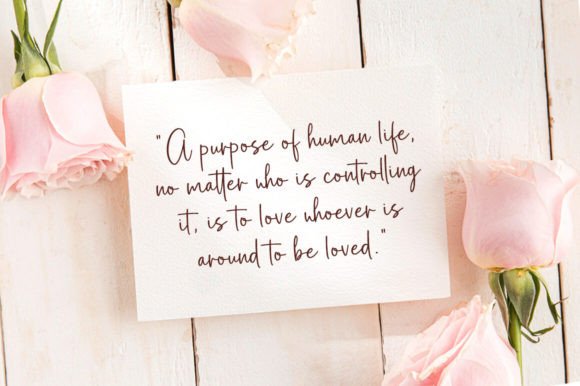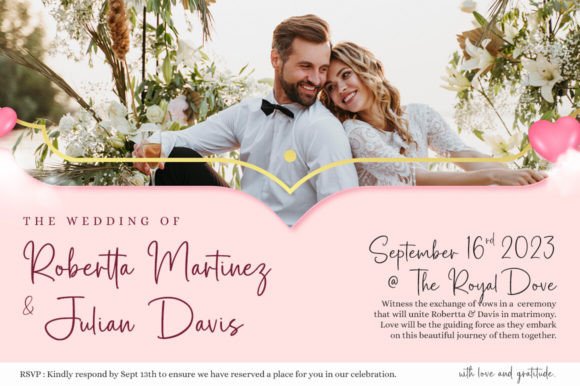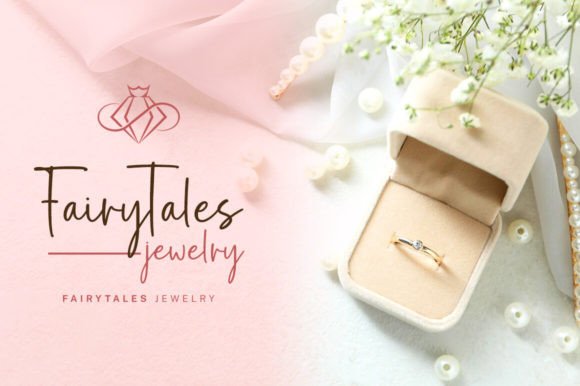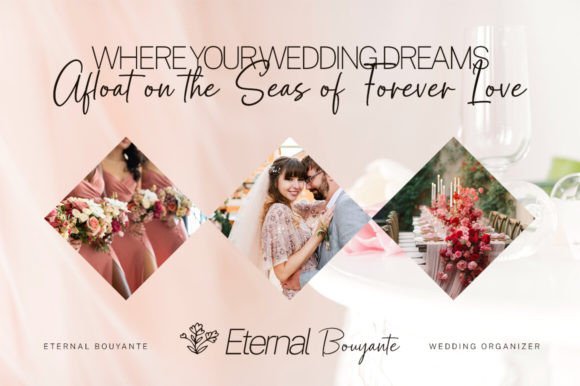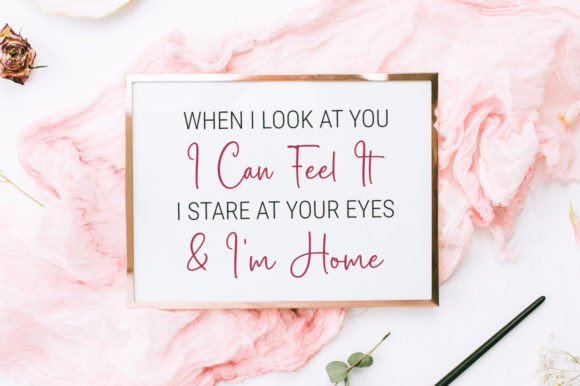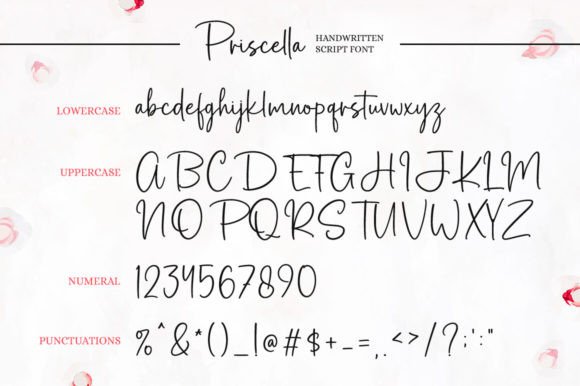
Introduction to Priscella Font
Emanating an air of elegance, Priscella is a handwritten script font that effortlessly infuses sophistication into your fashion branding or editorial projects.
With its meticulous design, Priscella sets the tone for a chic, contemporary aesthetic that catches the eye and captivates the heart This remarkable font is a symbol of refinement, perfectly framing the progressive spirit of modern fashion and editorial design.
Key Features of Priscella Font
Why Choose Priscella Font?
Priscella Font offers exceptional quality and versatility, making it a valuable addition to your design toolkit. Whether you’re creating for personal projects or commercial use, Priscella Font delivers professional results.